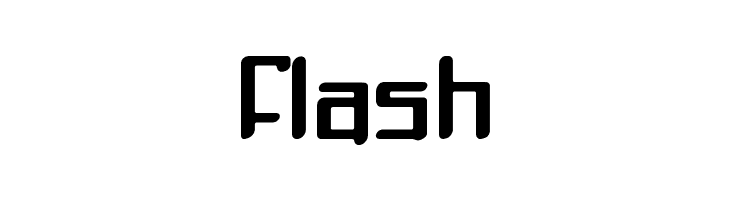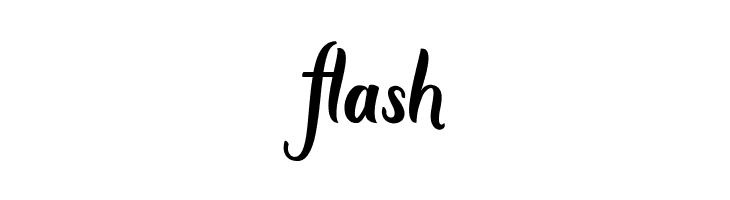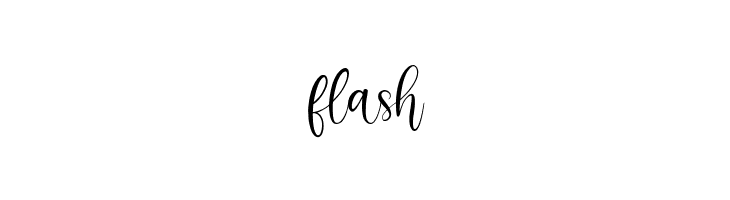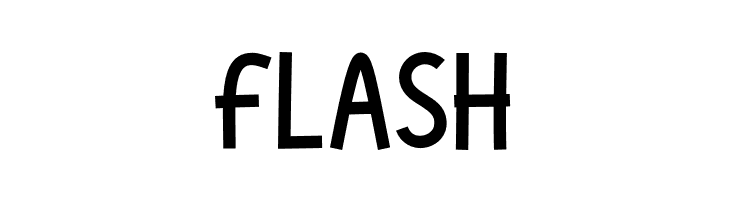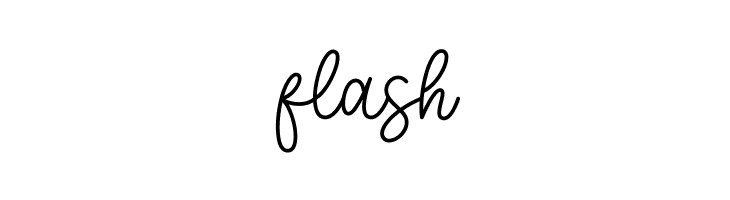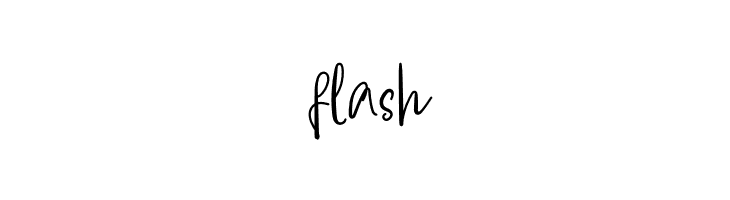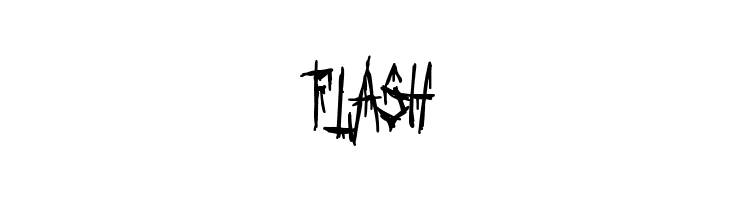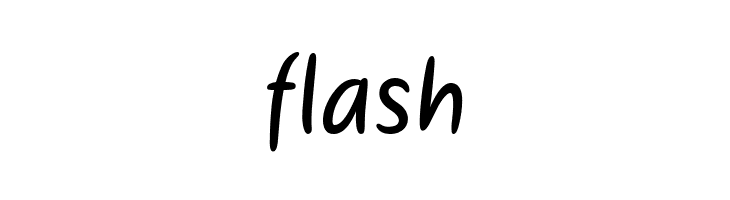
A playful, hand-drawn font with rounded edges and a whimsical style.
A dynamic and elegant script font with fluid strokes and cohesive design.
A bold, expressive handwritten font with dynamic strokes and playful curves.
A playful, whimsical script font with a handwritten style.
An elegant, cursive script font with a handwritten feel.
A playful and whimsical handwritten font with flowing, curvy letterforms.
A graceful and elegant script font with flowing, cursive letterforms and ornate flourishes.
A futuristic, geometric font with rounded edges and uniform strokes.
A decorative font with Mother's Day-themed designs and playful elements.
A casual, handwritten font with smooth, rounded strokes.
A playful, hand-drawn font with rounded edges and a whimsical style.
A charming, flowing script font with smooth, continuous strokes and elegant curves.
Distressed, jagged, hand-drawn display font with chaotic energy.